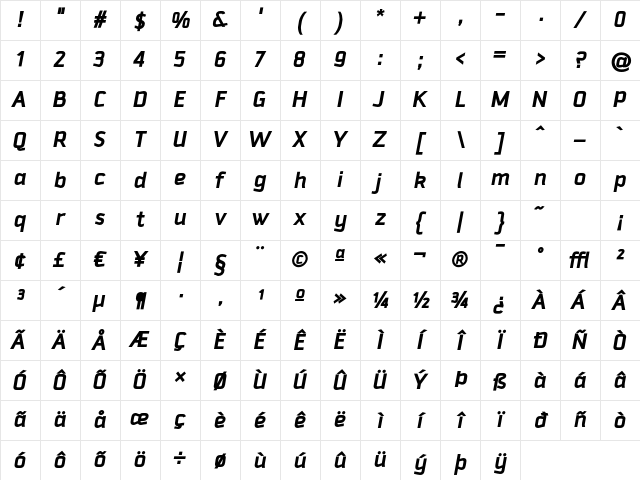
Downtempo BoldItalic
Design Context for Downtempo
Downtempo is a composed and adaptable typeface that performs quietly and consistently across a wide range of design contexts. The slanted form adds forward momentum and visual energy. Its bold stroke weight gives it real presence on the page.
Pro Tip: Use Downtempo for emphasis, pull quotes, and subheadings where its slanted energy can add rhythm to the layout.